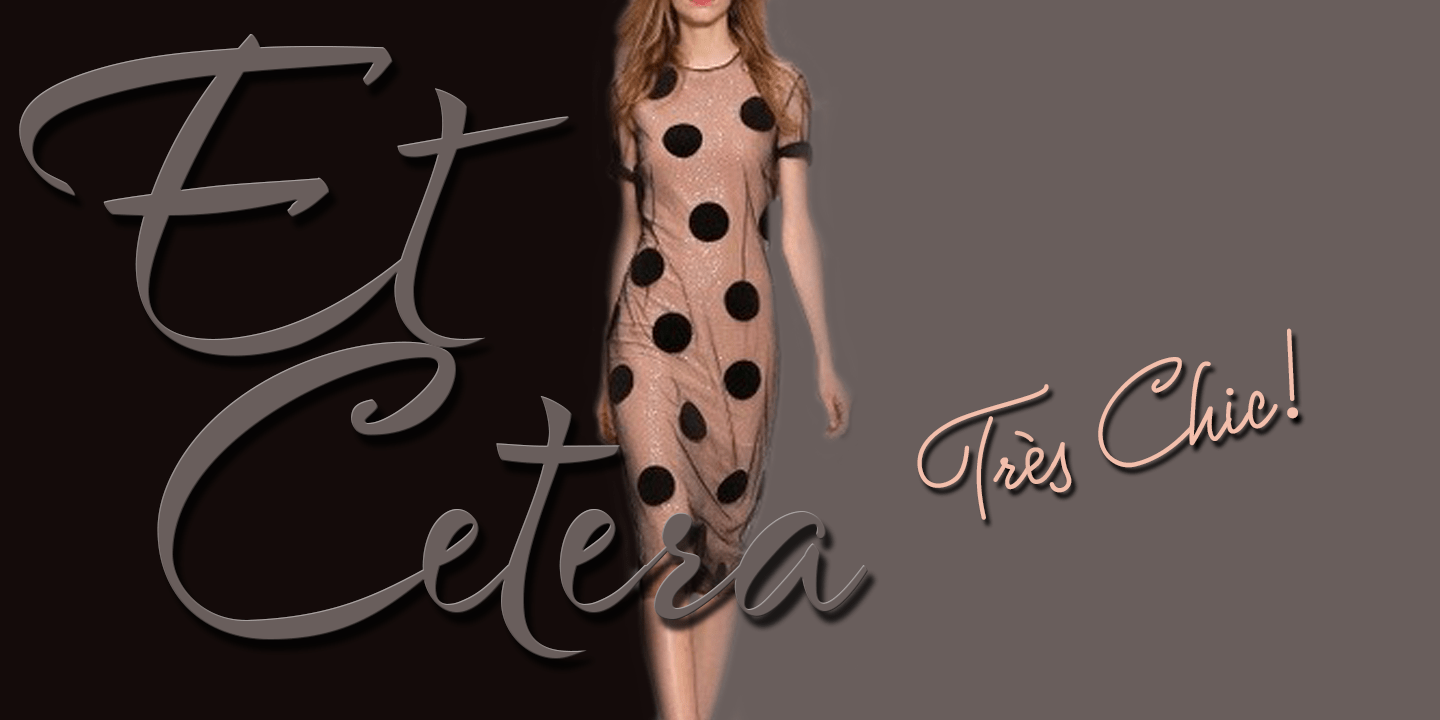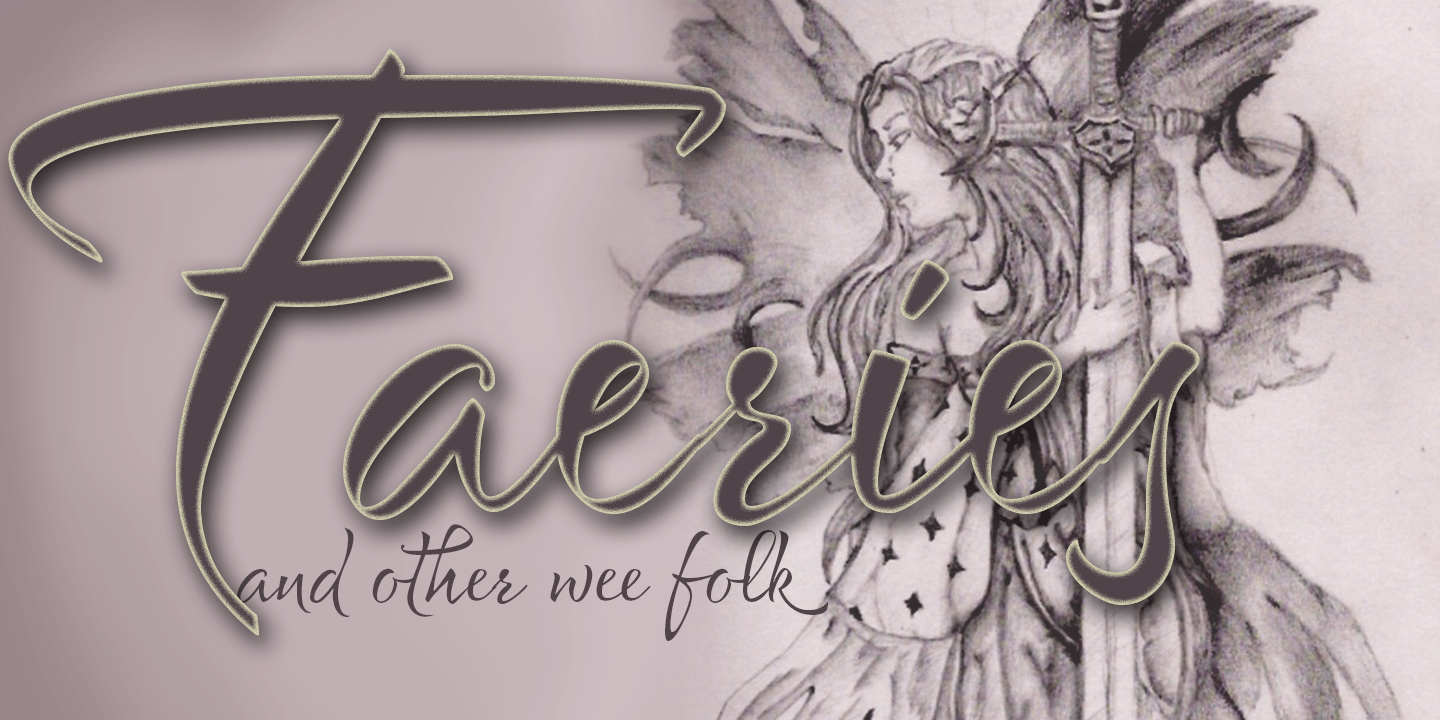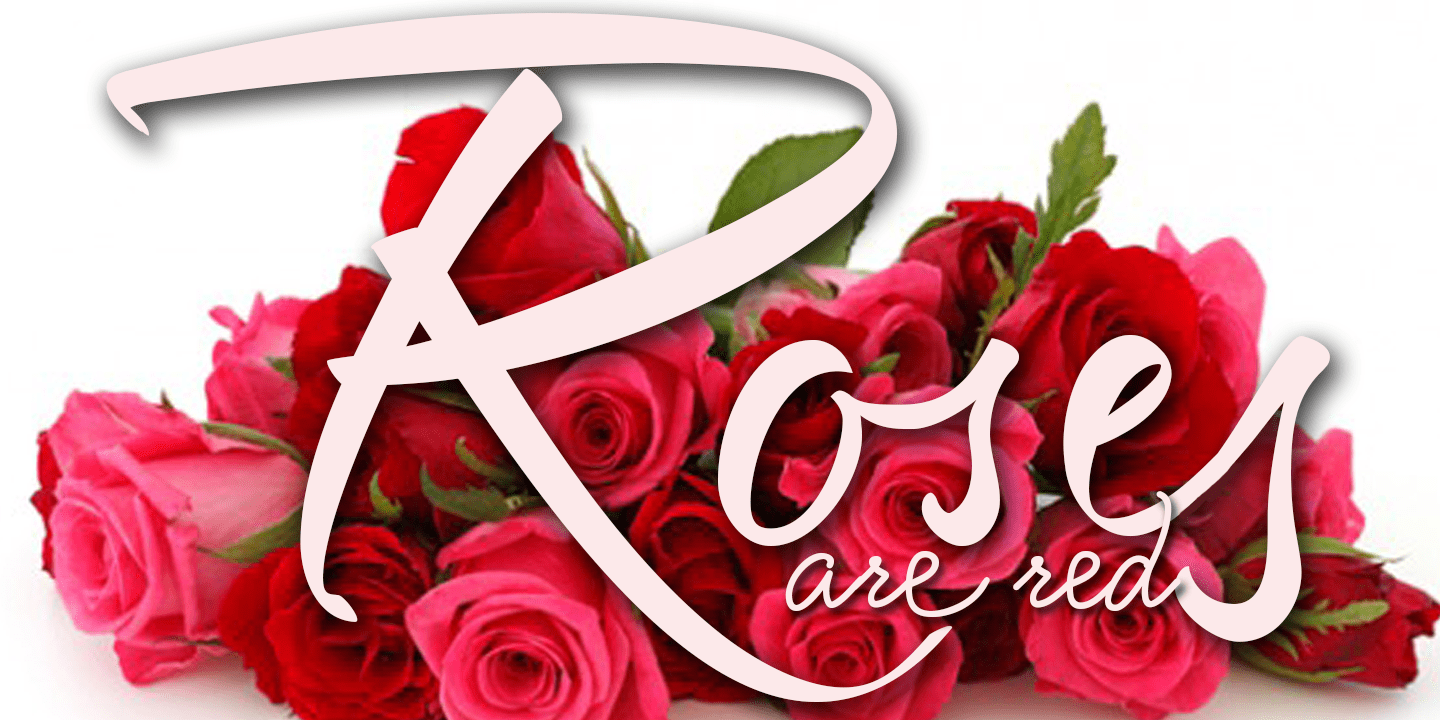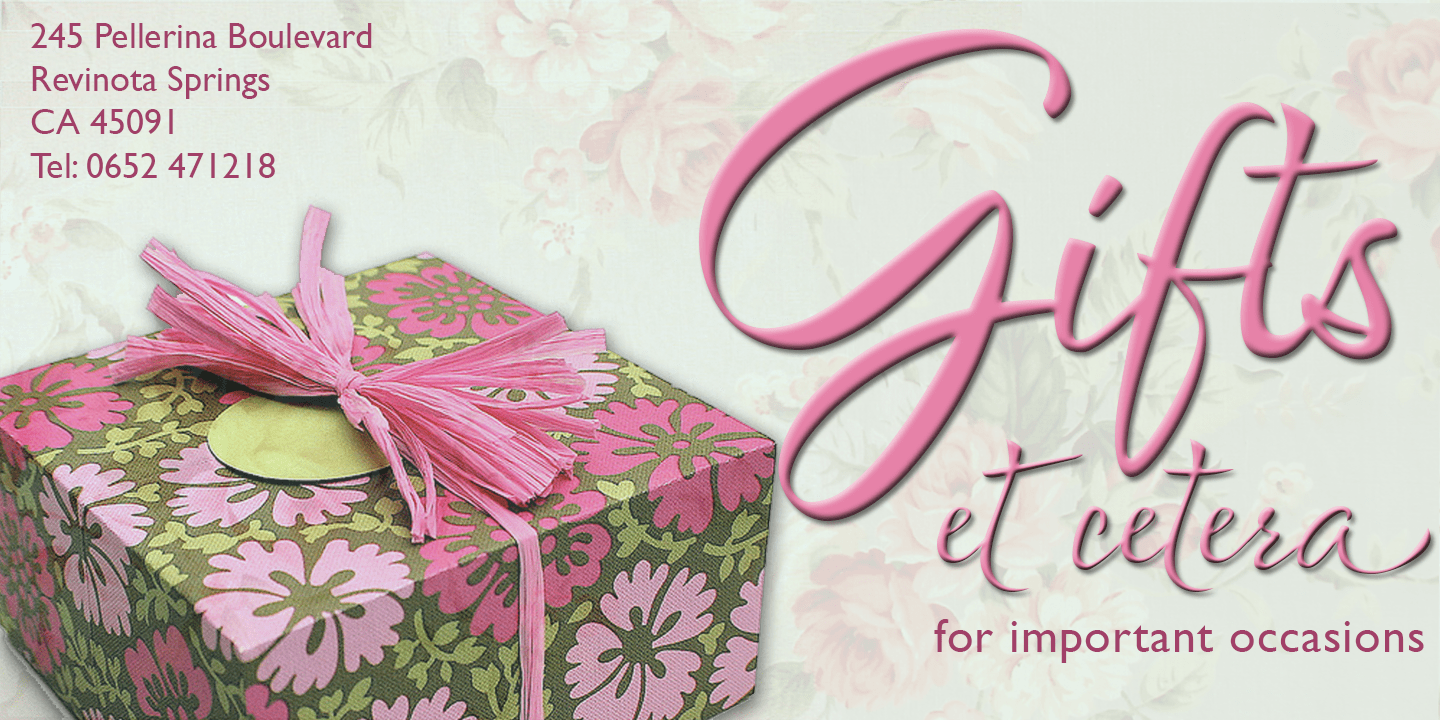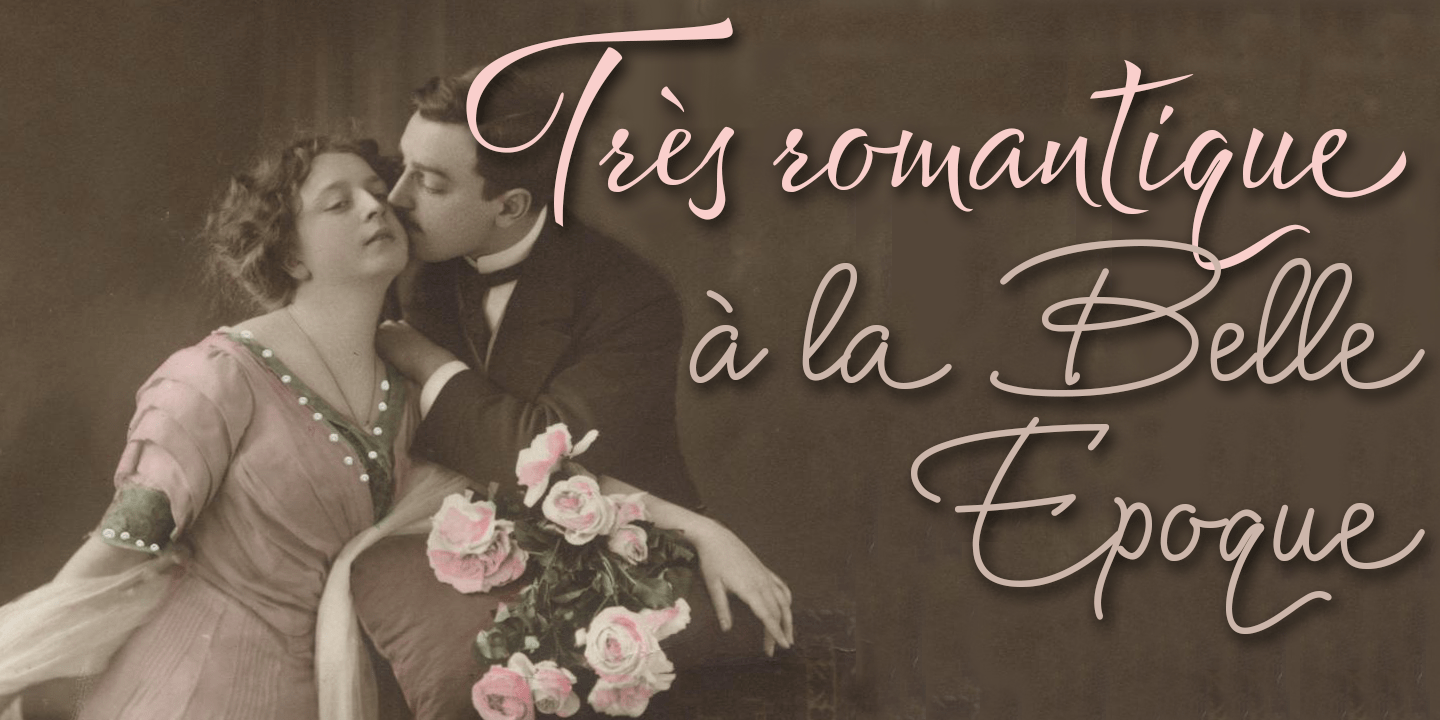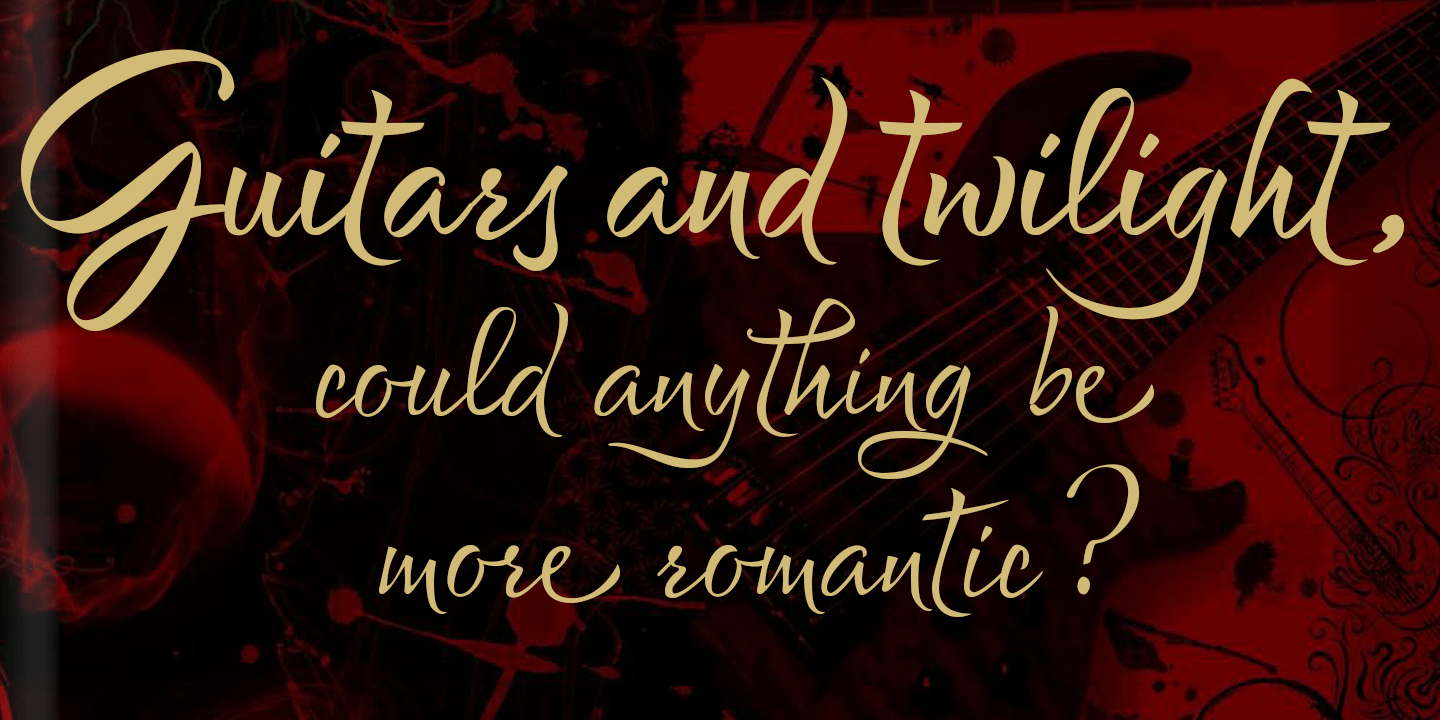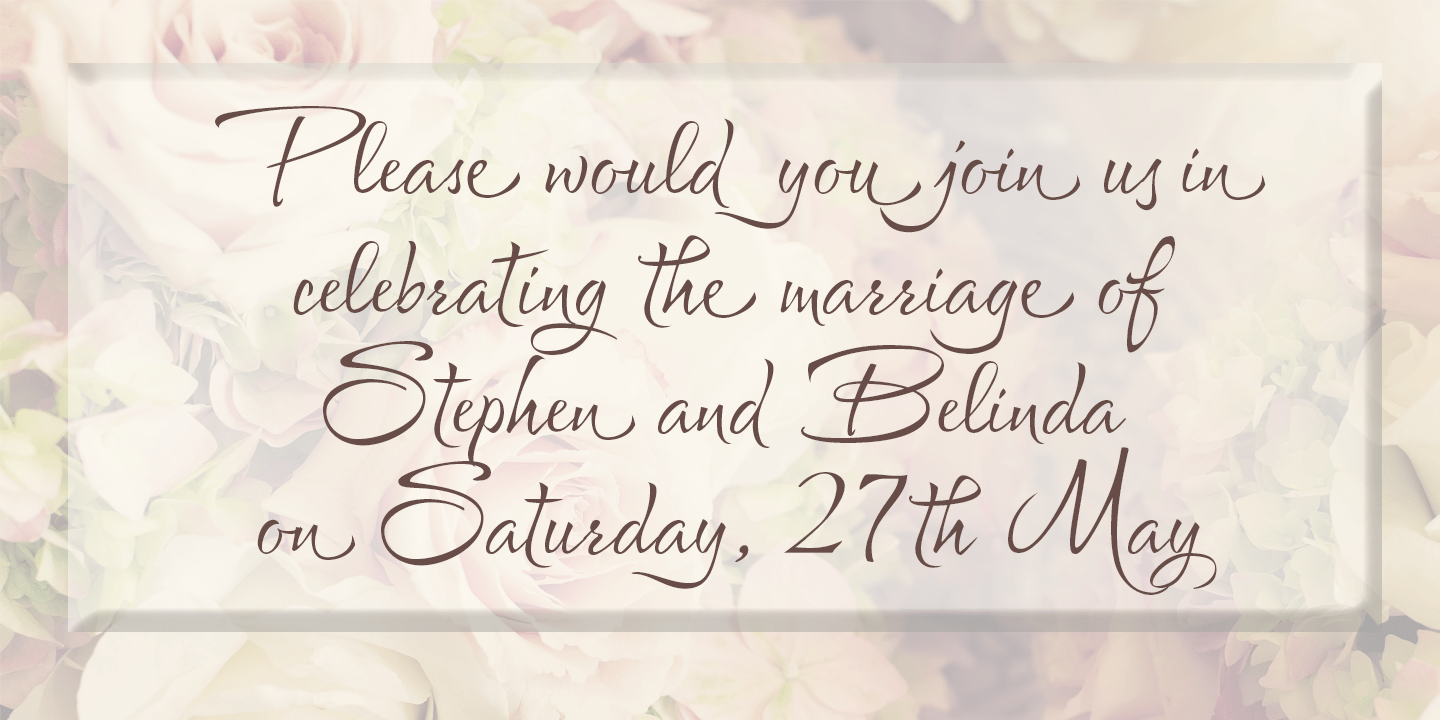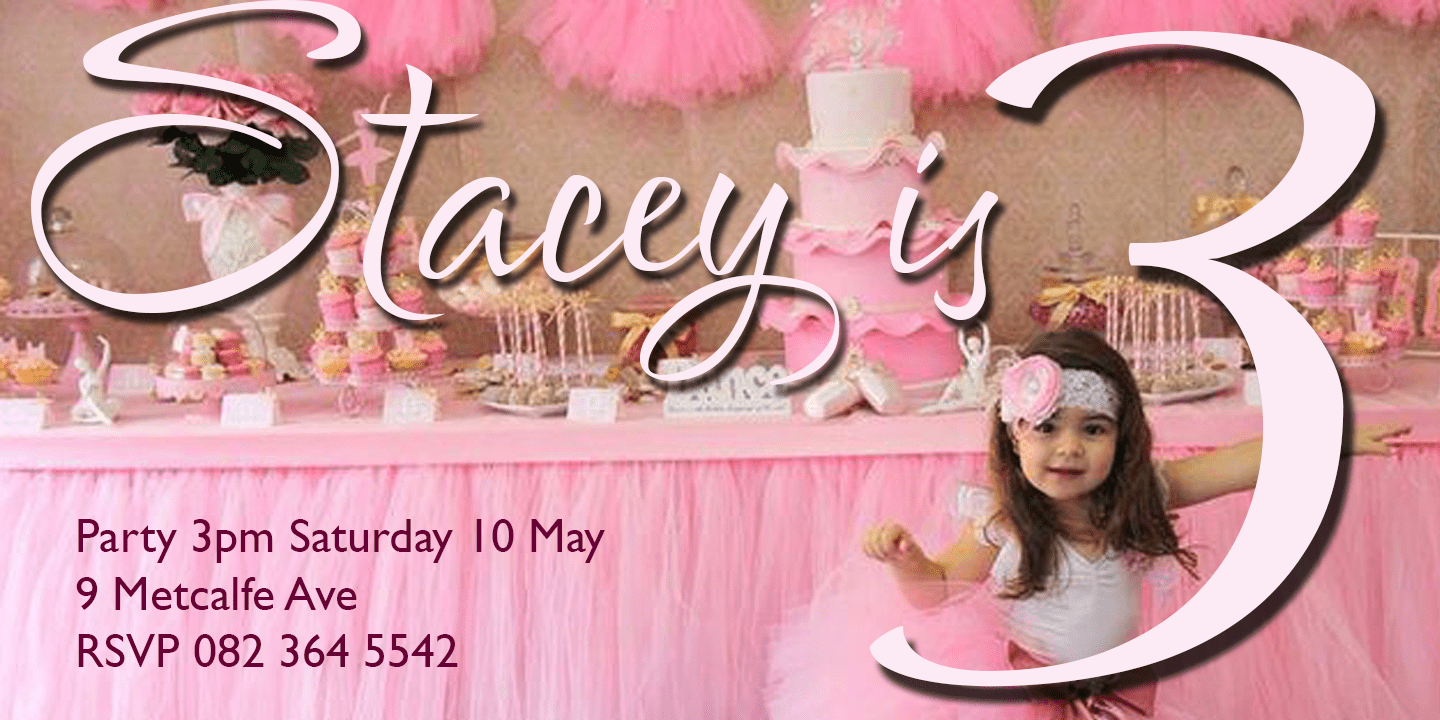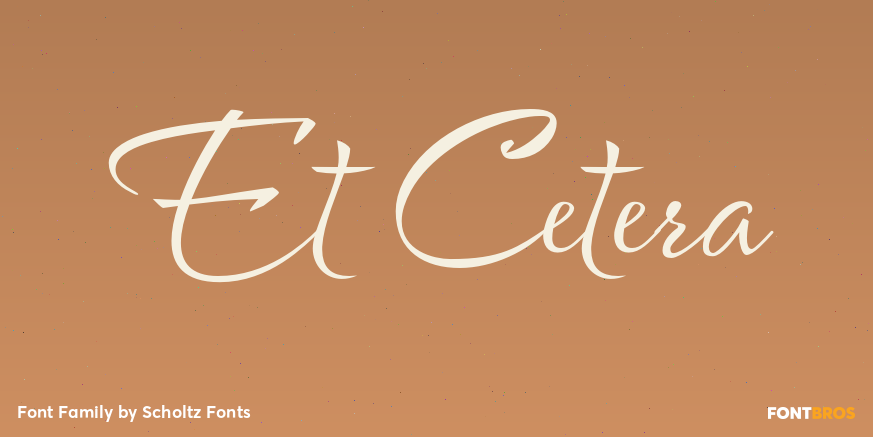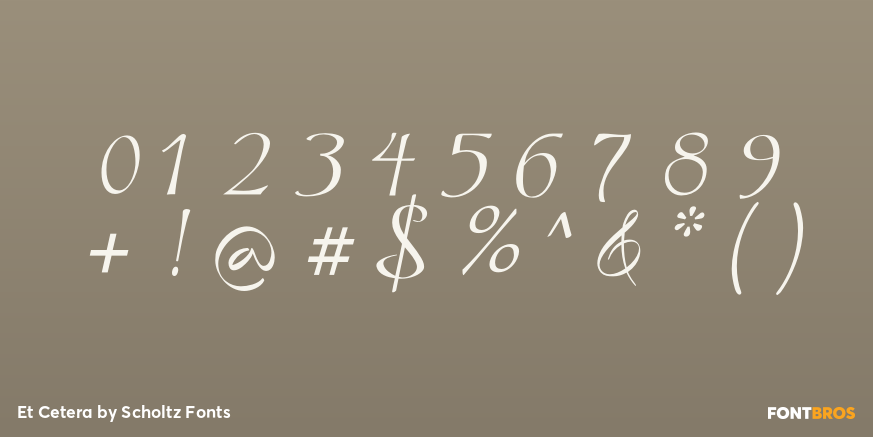
Et Cetera
Et Cetera is a beautiful, hand-lettered script. It abounds in OpenType features such as terminal swashes and ligatures and is best used with OpenType savvy software with the 'standard ligatures? and ?contextual alternates? features turned ON. Et Cetera is comprehensive and vigorous.
Most letters in the font are connected, but, as in typical handwriting fonts, not all are connected. Most characters have a consistent shape within the font, but not all. Some characters in Et Cetera are sensitive to their position in the text and change depending on the adjoining characters. This contributes to the casual and relaxed style of Et Cetera; not allowing the features of the font to get between the reader and the message.
A wealth of OpenType features lie beneath the mellow exterior of Et Cetera. These Open Type features make few demands on the user which makes for a versatile script font that requires no expertise from the user, performs well at larger sizes, and remains legible even when setting copy at very small sizes.
Et Cetera comes in three styles, Black, Regular & Line. Et Cetera Black is dramatic and bold, making a powerful statement. Et Cetera Regular is elegant and romantic, perfect for wedding stationery and clothing brands. Et Cetera Line is delicate and feminine, portraying a smooth, flowing effect.
Et Cetera is a breezy, light, yet expressive font that is perfect for titling work, product packaging and romantic stationery.